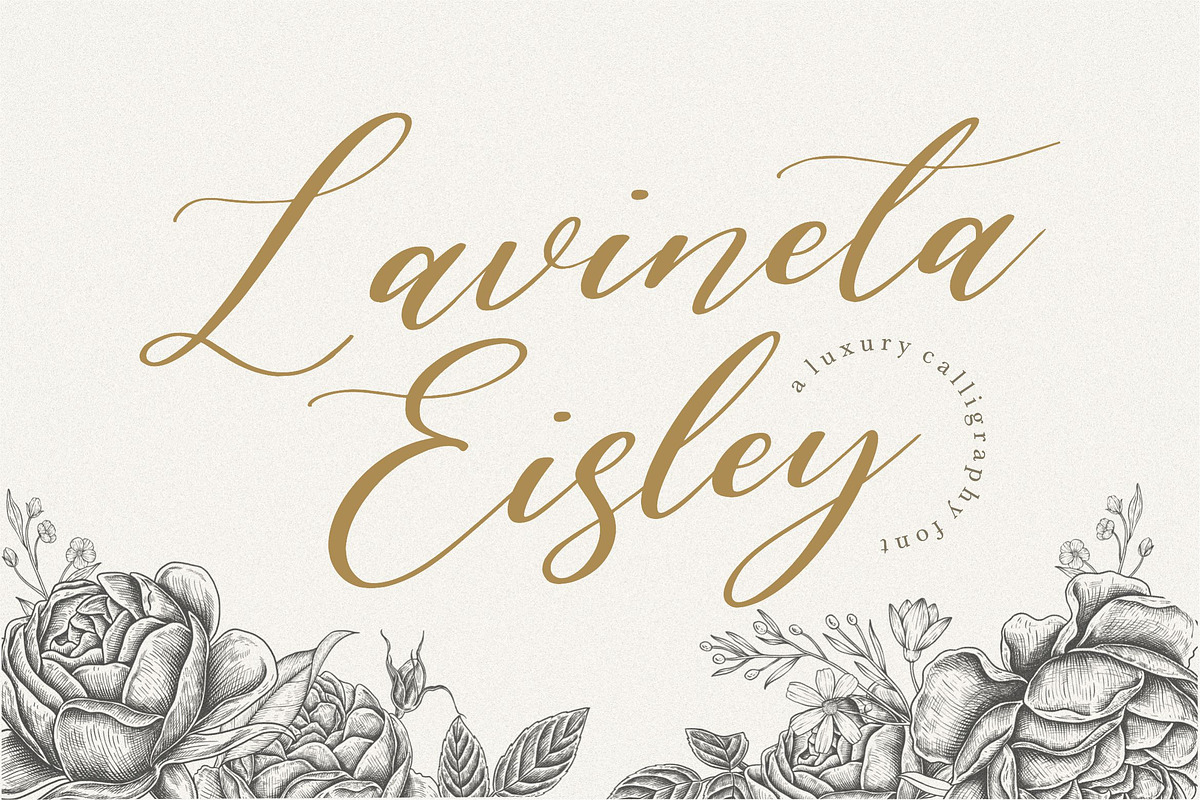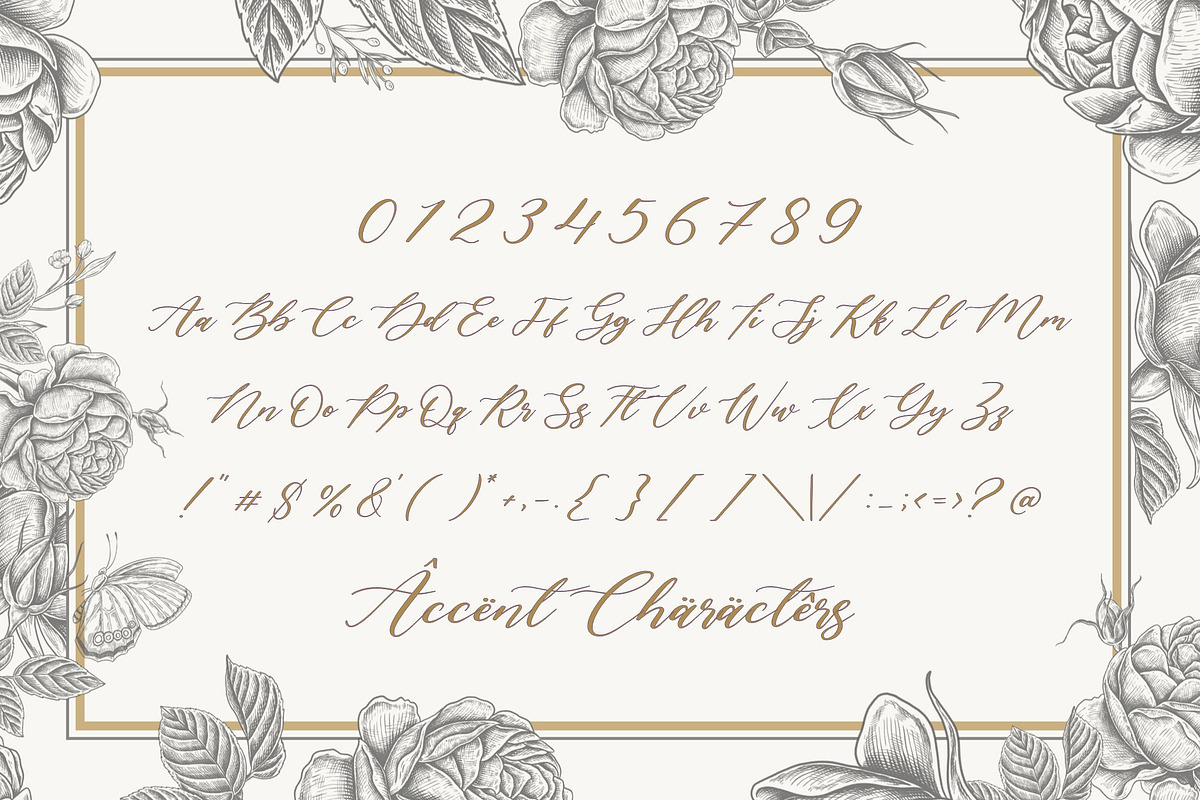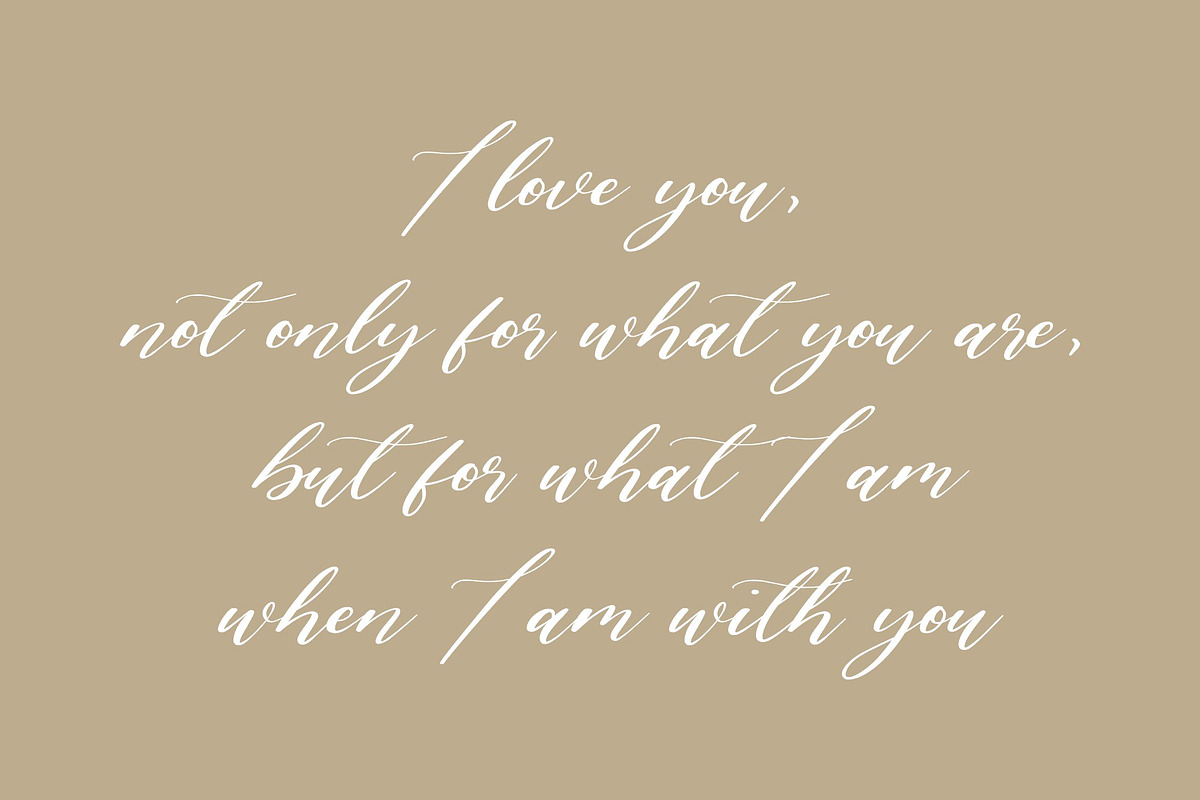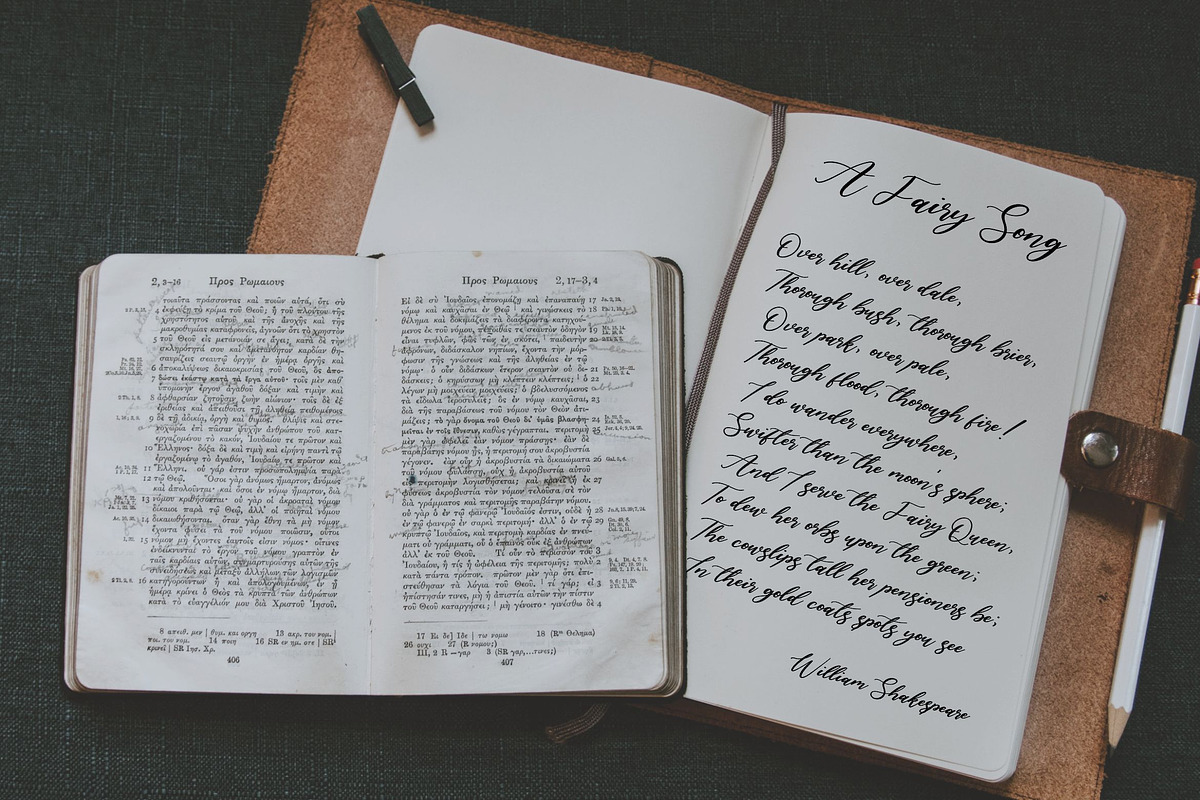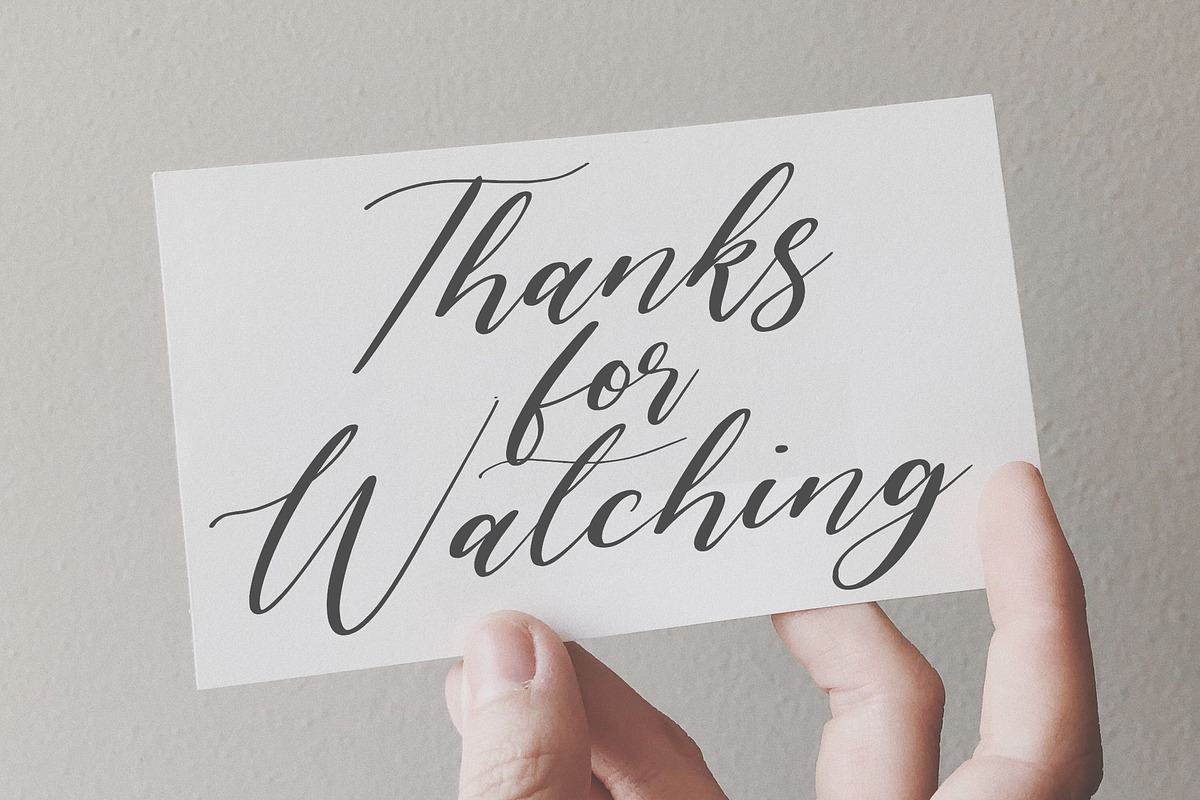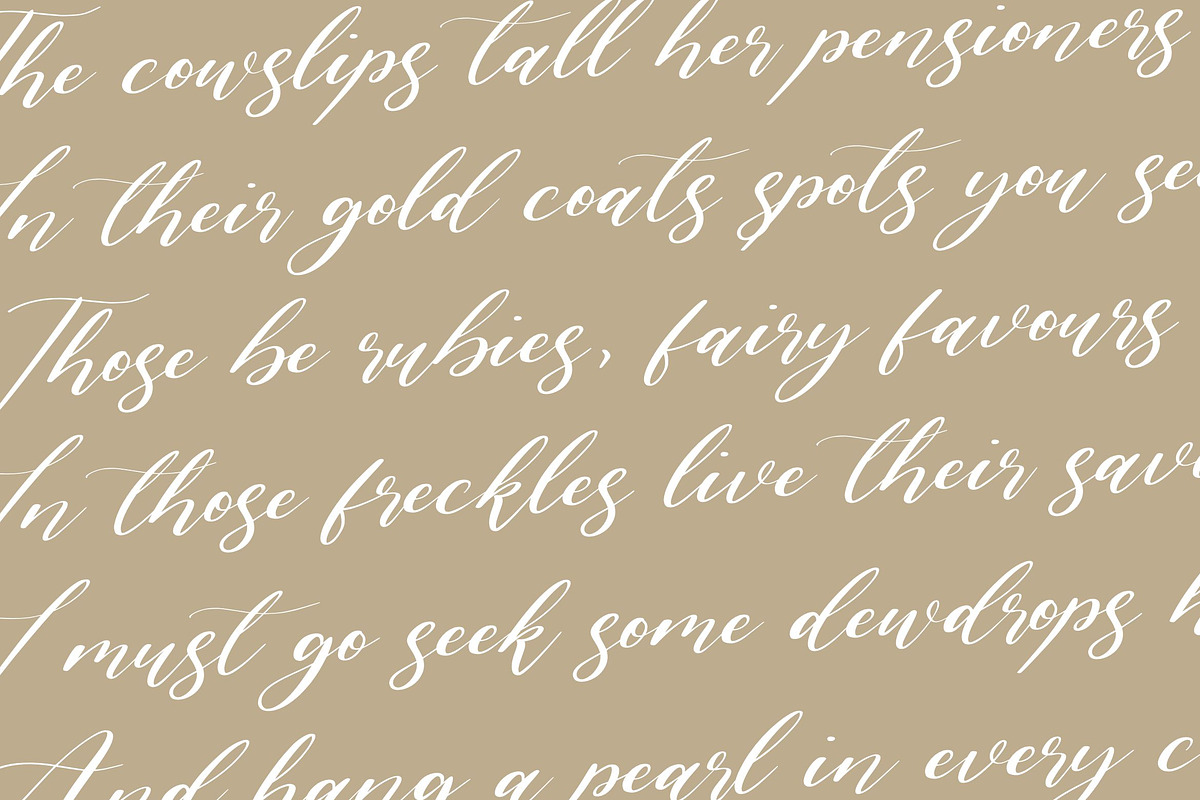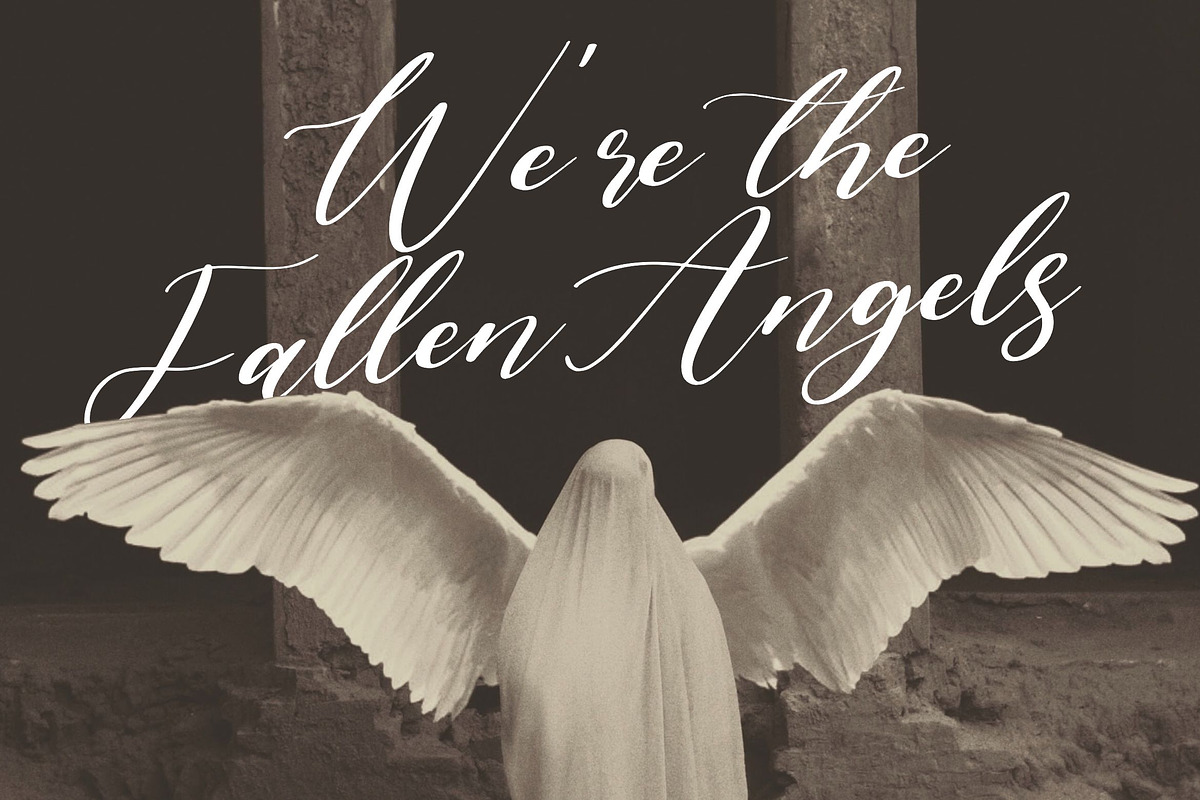
Lavineta Eisley - Calligraphy Font
Proudly Present, Lavineta Eisley Font
Lavineta Eisley is a flowing handwritten font, described by an elegant touch, perfect for your favorite projects. Fall in love with its incredibly distinct and timeless style and use it to create spectacular designs!